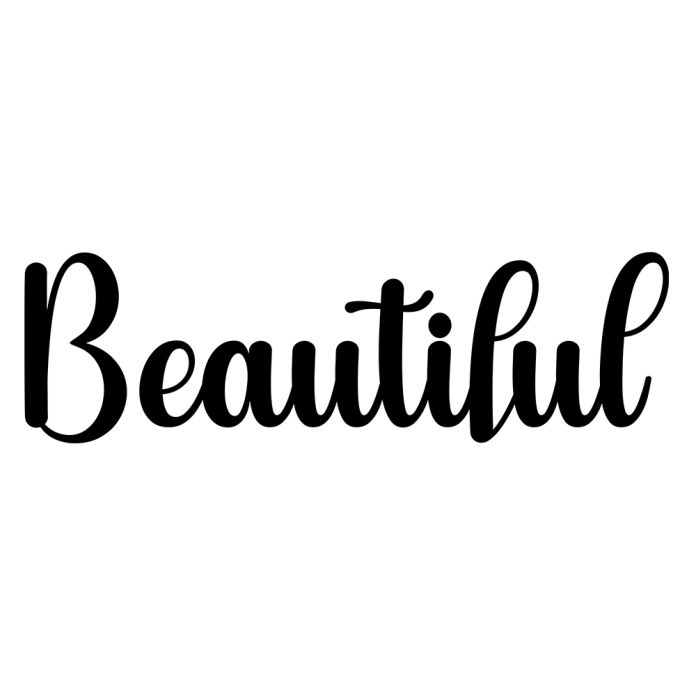
Beautiful is a lovely and sweet handwritten script font. This gentle font will look gorgeous on a variety of design ideas. It is the best choice for creating eye catching logos, branding, and quotes.